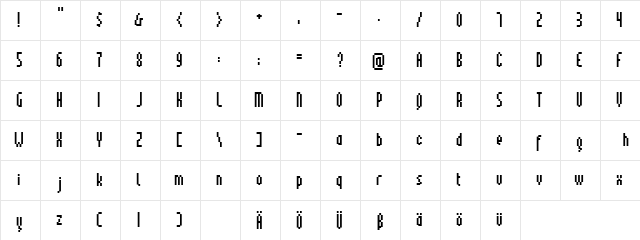
pinx Bold
Design Context for pinx Typeface
pinx takes a measured approach to typography — its balanced proportions and neutral character make it a reliable workhorse for both digital and print work. Its bold stroke weight gives it real presence on the page.